What is the Vogue Font?
The Vogue font is a typeface that is often associated with the renowned fashion magazine Vogue. It is a custom-designed, elegant, and distinctive font that embodies the magazine’s high-end, sophisticated aesthetic.
The Vogue font features sleek, elongated letterforms and is often used in the magazine’s logo, covers, and various editorial materials, reflecting the world of fashion and luxury. It’s a timeless and iconic typeface that instantly evokes a sense of style and glamour.
What is the Closest Equivalent Font in Canva to The Vogue Font?
The Vogue font is not available by default in Canva. However, Canva does offer several fonts similar to the Vogue font including:
- Boston Angel
- Prata
- Didot LP (Example Shown Below)
Vogue Logo Font:
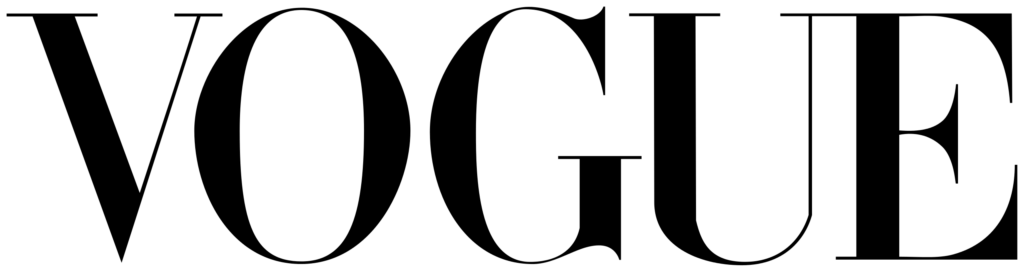
Recreation of Vogue Font Using Didot LP Font in Canva:
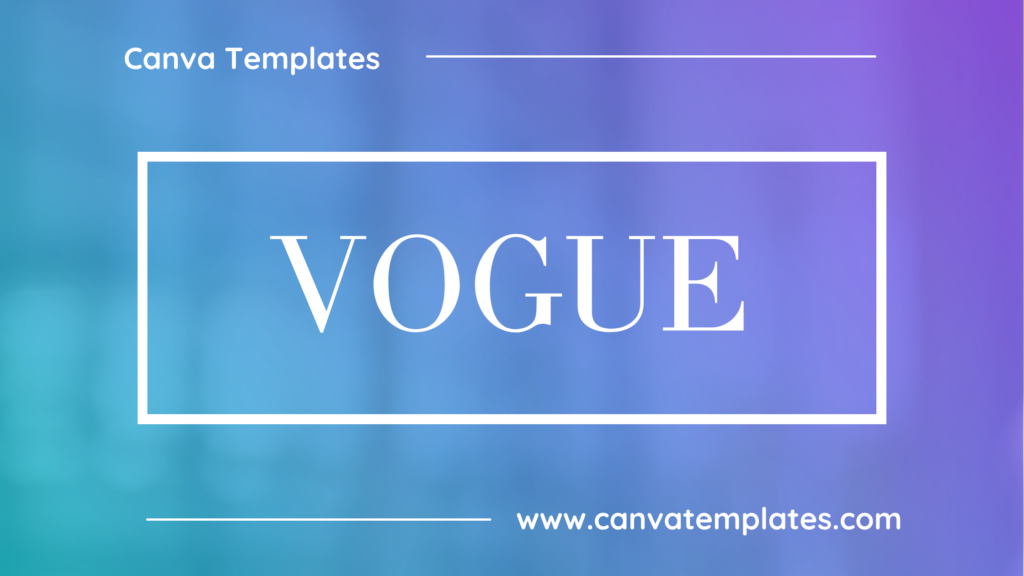
If you want to use a font similar to the Vogue Logo font, you can download the nearly identical font by Vladimir Nikolic on the dafont.com website. This font is not available on Canva by default, but can be easily uploaded as a custom font to Canva: